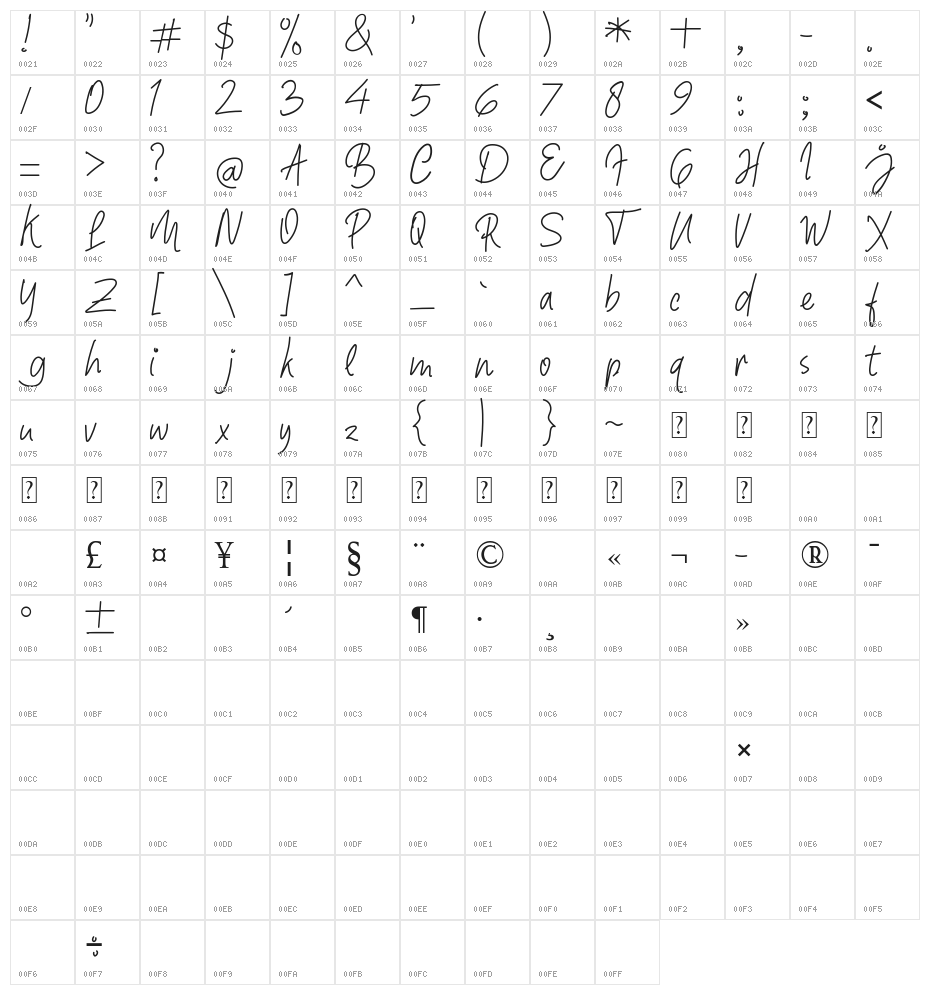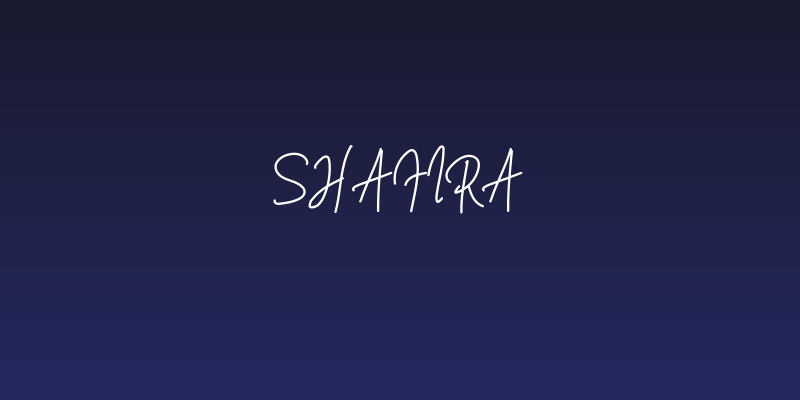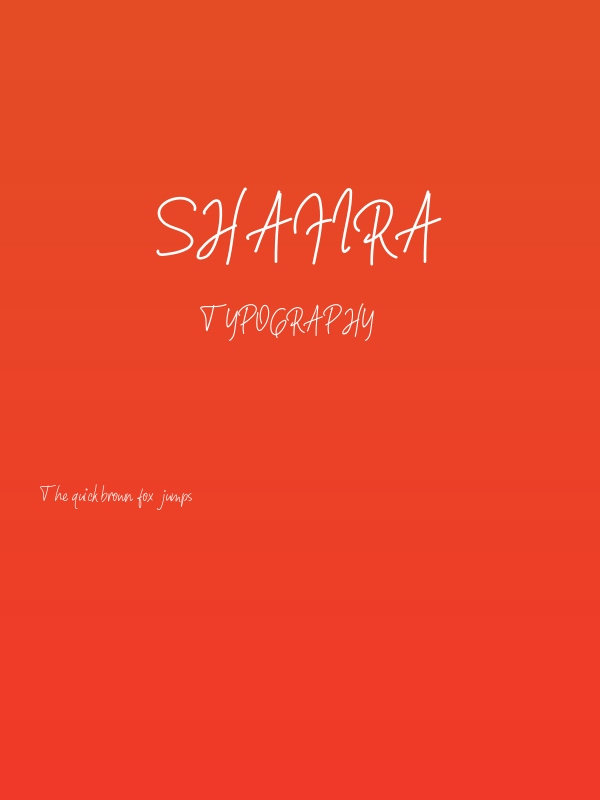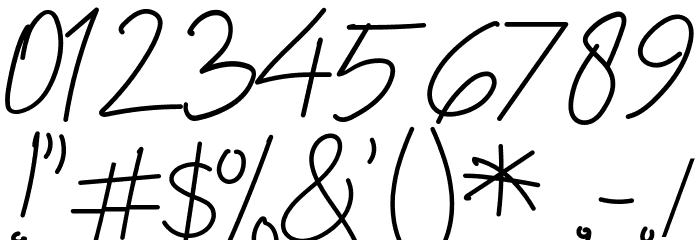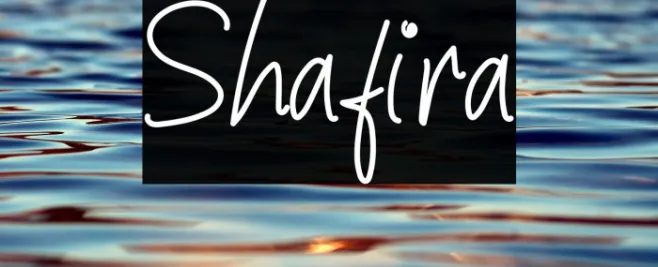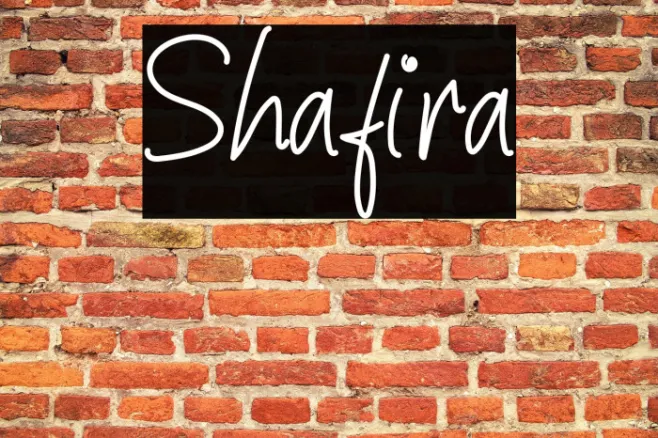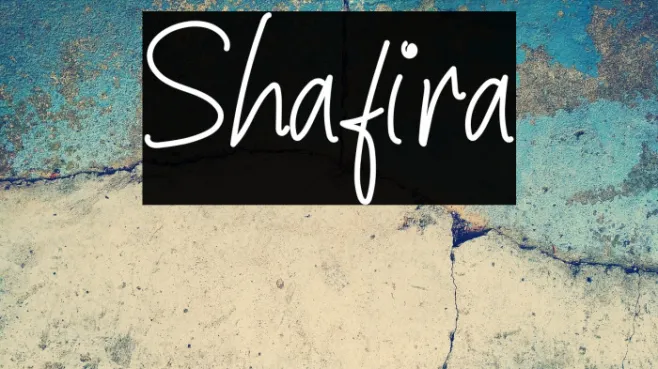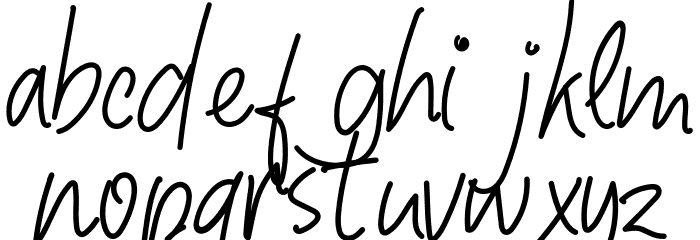
Shafira Font
Shafira Description
This font features a lively and dynamic handwritten style, characterized by its fluid and continuous strokes. The letters exhibit a natural, free-flowing form that mimics the motion of cursive handwriting. Uppercase letters are slightly taller and more pronounced, while lowercase letters maintain a consistent baseline, enhancing readability. The numerals and special characters follow the same fluid style, ensuring a cohesive look across all text. This font's playful yet elegant appearance makes it suitable for a variety of creative applications.